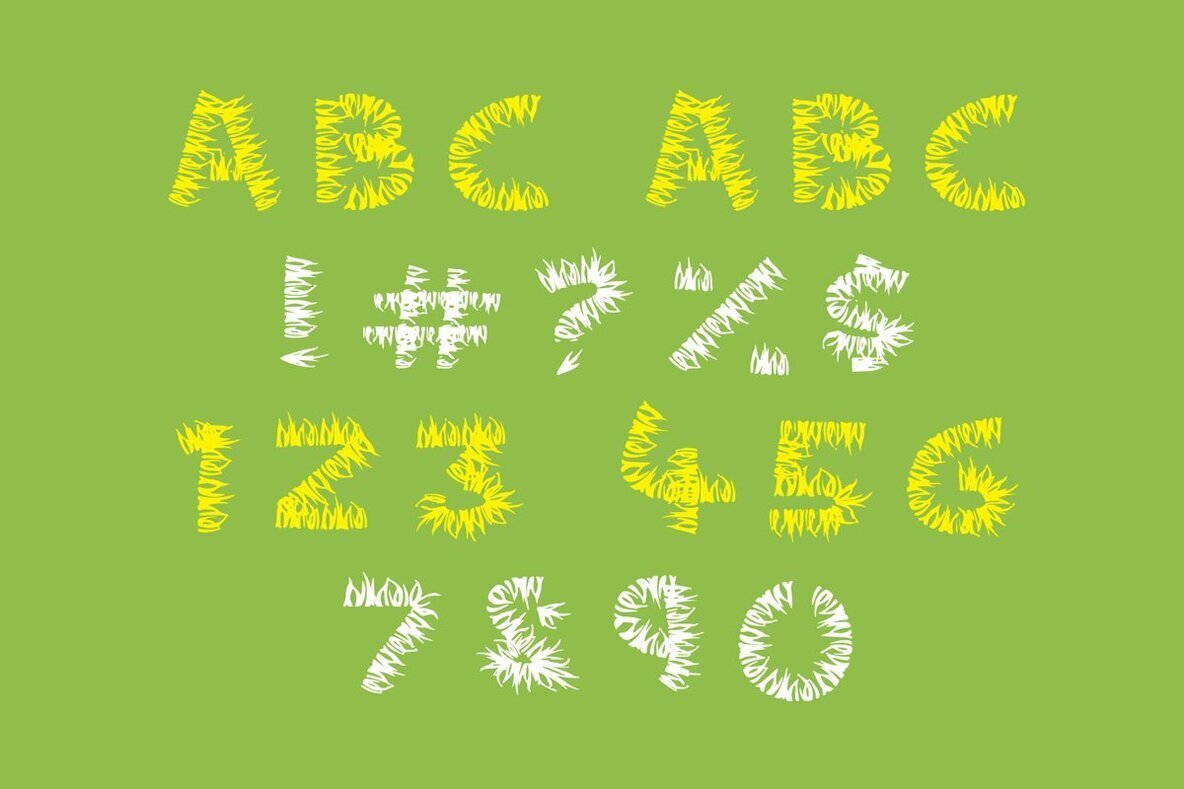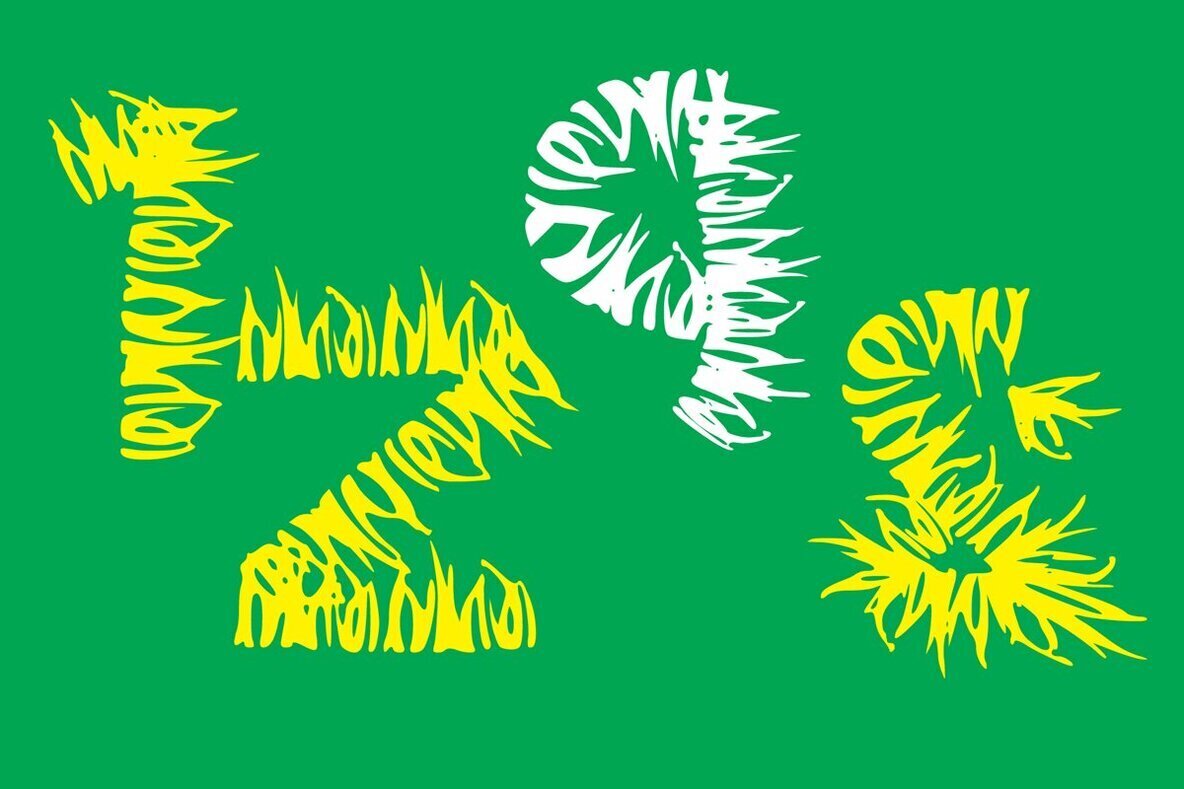
Keep Off 1
Keep Off is an incredibly cool and interesting decorative font, with characters made out of hair. Featuring a strong visual effect, this font will instantly make your creation more appealing than any others.